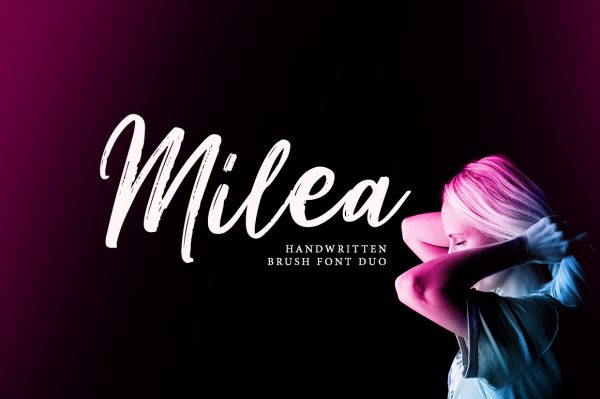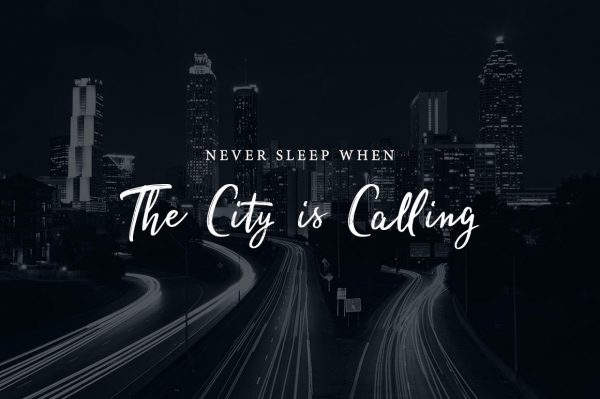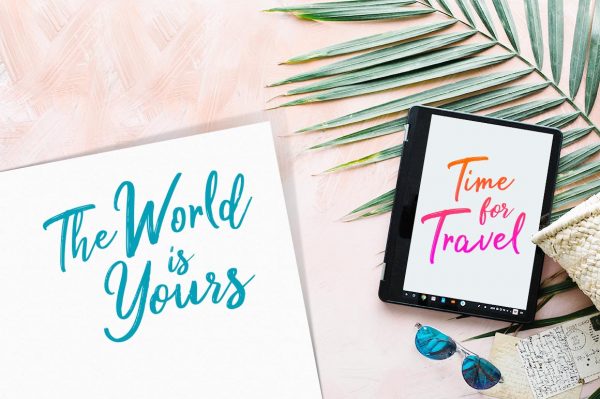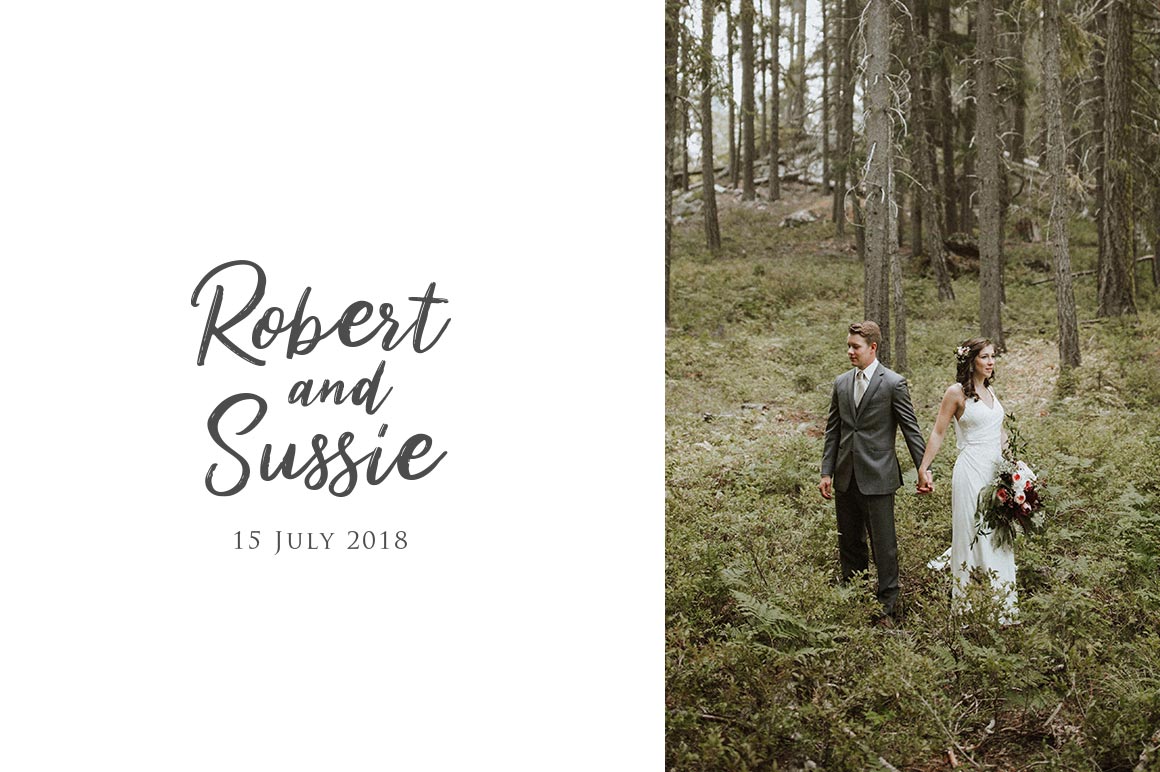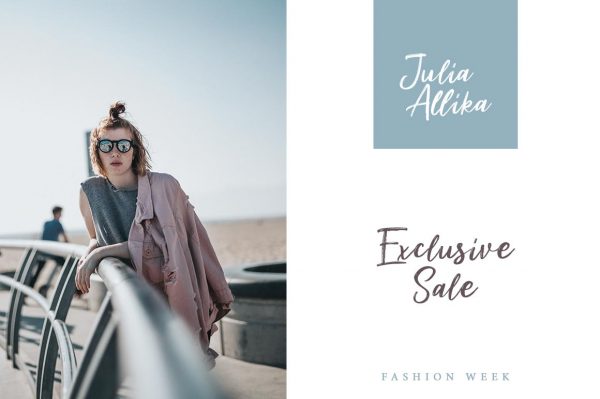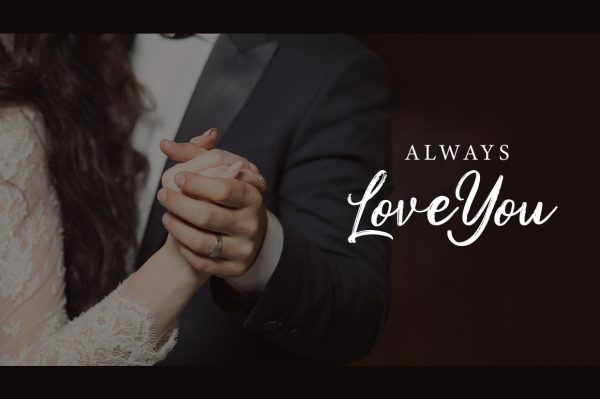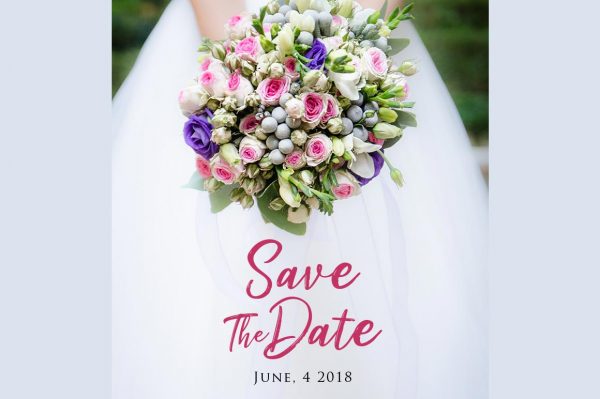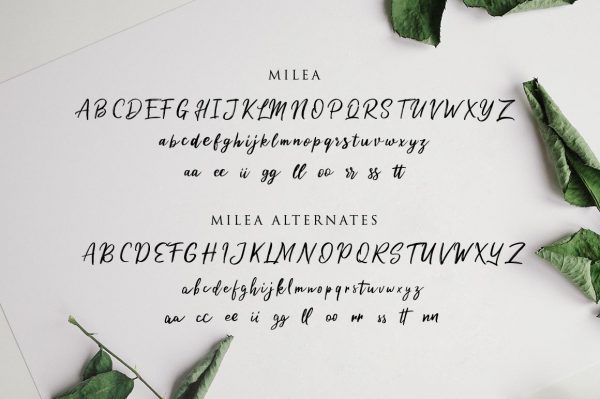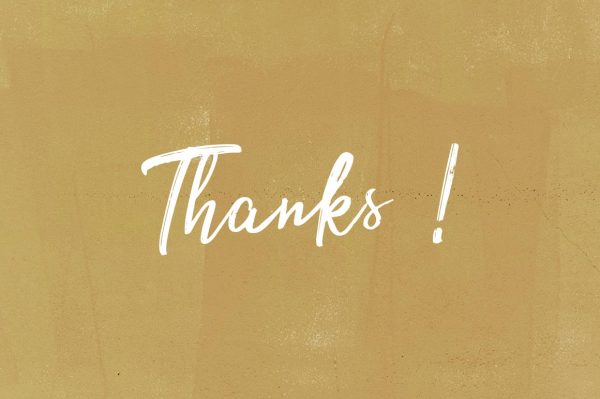
Milea – Handwritten Brush
Milea – Handwritten Brush Font Duo
Introducing Milea Handwritten Brush Font Duo, script with a natural dry brush strokes make it beautiful, and the stroke of hand quickly.
Milea is perfect for signature, branding, wedding, fashion, photography title, poster, social media, ad banner, book cover, packaging, handwritten quotes, greeting cards and advertising. With 2 fonts you can create more easily with alternatives to each letter and make it as if you wrote it yourself.